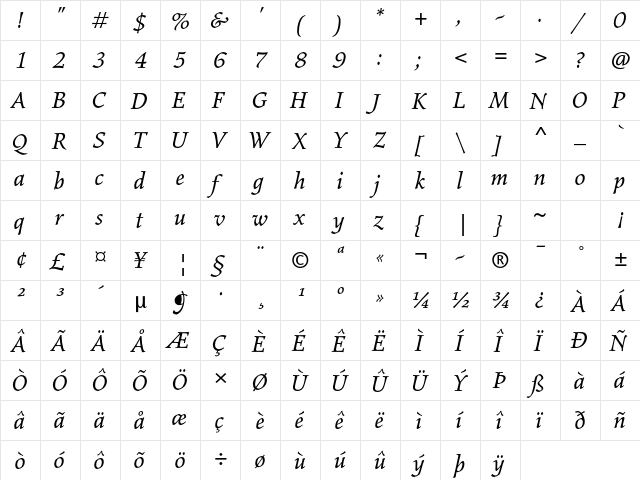
Elysium Std Book Italic
| Designer | Michael Gills |
Design Context for Elysium Std Typeface
Elysium Std offers clean, dependable letterforms without strong stylistic allegiance, making it a practical choice for designers who need flexibility. The dynamic lean of this cut emphasises speed and emphasis in any layout.
Pro Tip: Use Elysium Std for emphasis, pull quotes, and subheadings where its slanted energy can add rhythm to the layout.